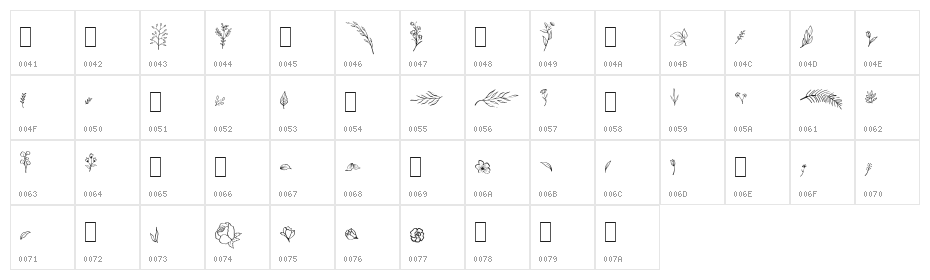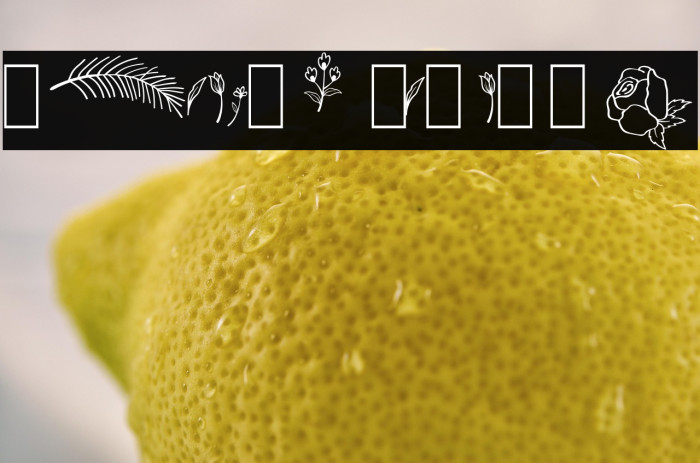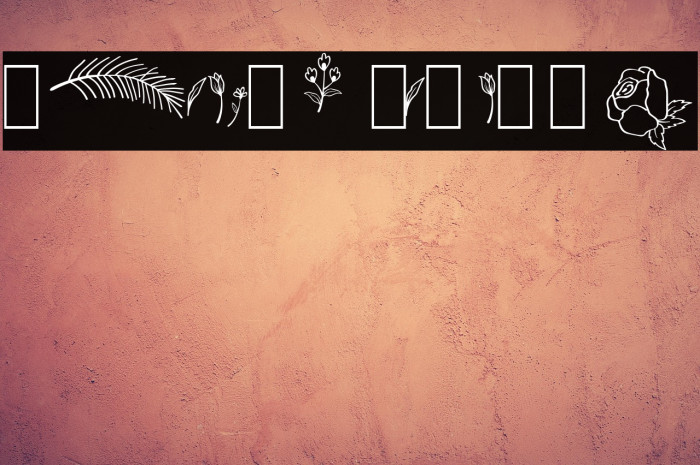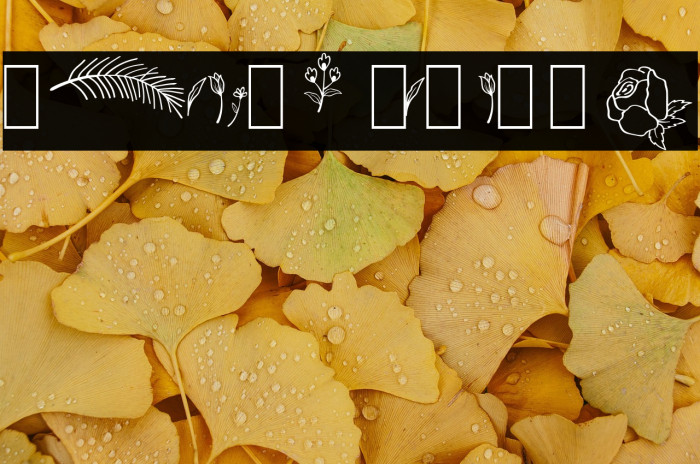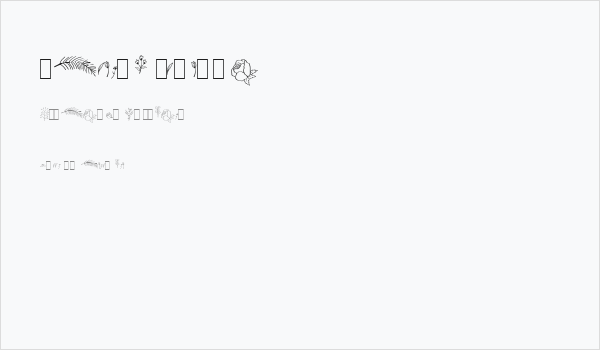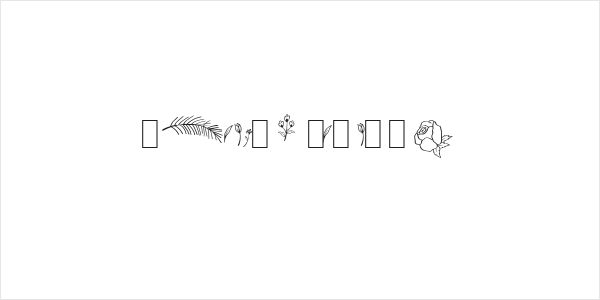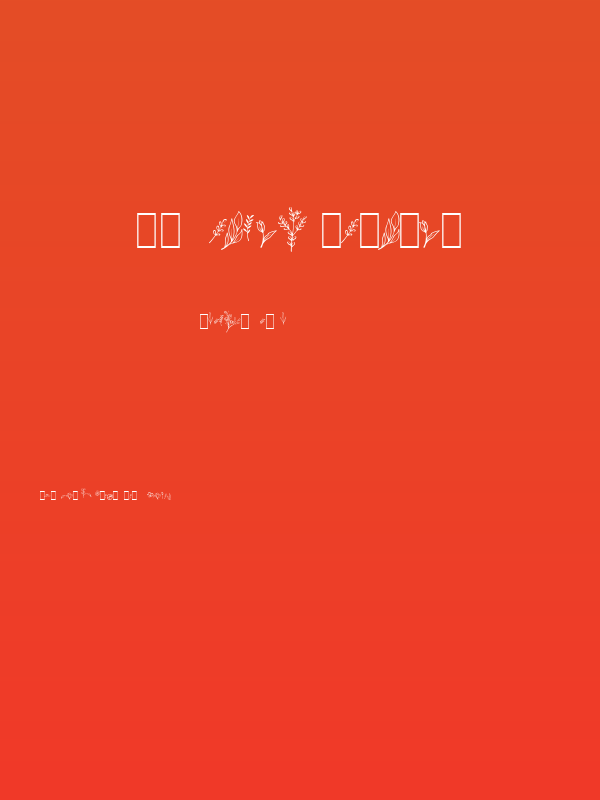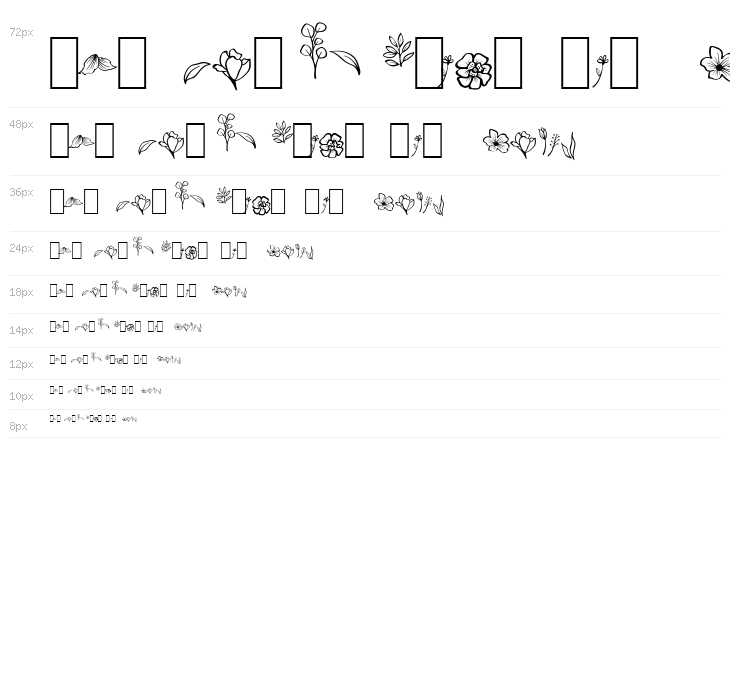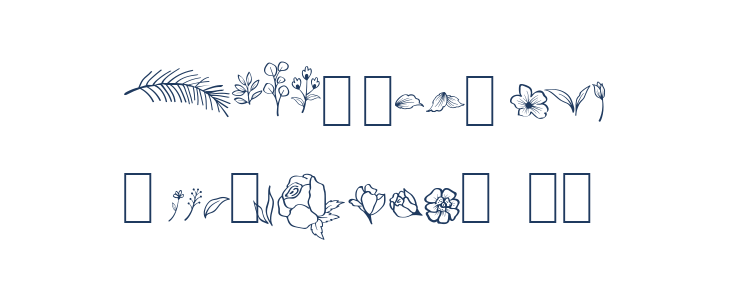
Balmond Element Font
Balmond Element Description
This set features hand-drawn botanical and floral illustrations with clean, thin lines and a delicate, organic feel. The elements include leaves, branches, flowers, and buds, all rendered in a consistent, minimalist style suitable for decorative purposes.
| Overall Style | Decorative, Hand-drawn, Minimalist |
| Use Case | Decorative elements, Borders, Accents, Illustrations |
| Proposed Projects | Wedding invitations, greeting cards, branding, packaging, scrapbooking, social media graphics. |